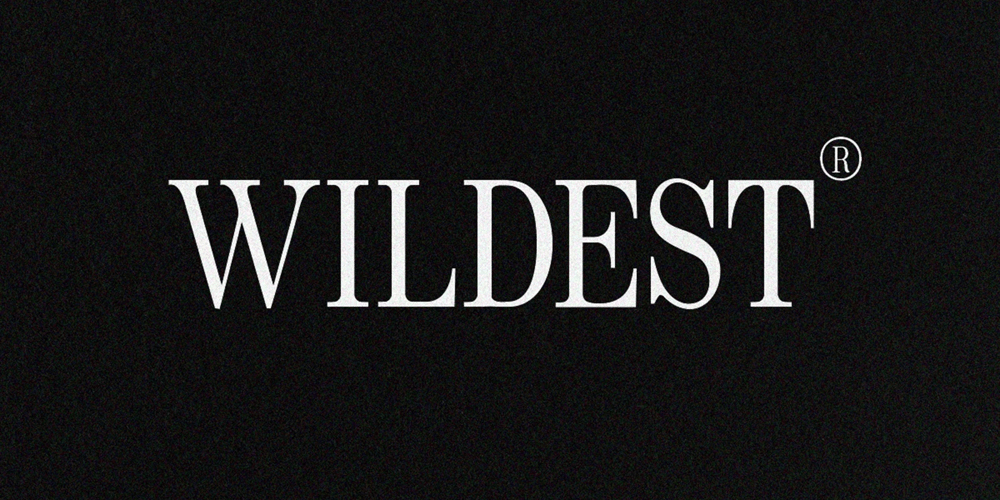
Wildest
Wildest font
Wildest Font Family was designed by Gholib Tammami and published by Gholib Tammami. Wildest contains 1 styles and family package options. Wildest is a basic serif font. It’s casual charm and classy features make it suitable for a wide spectrum of applications. Add it confidently to your projects and you will love the results!